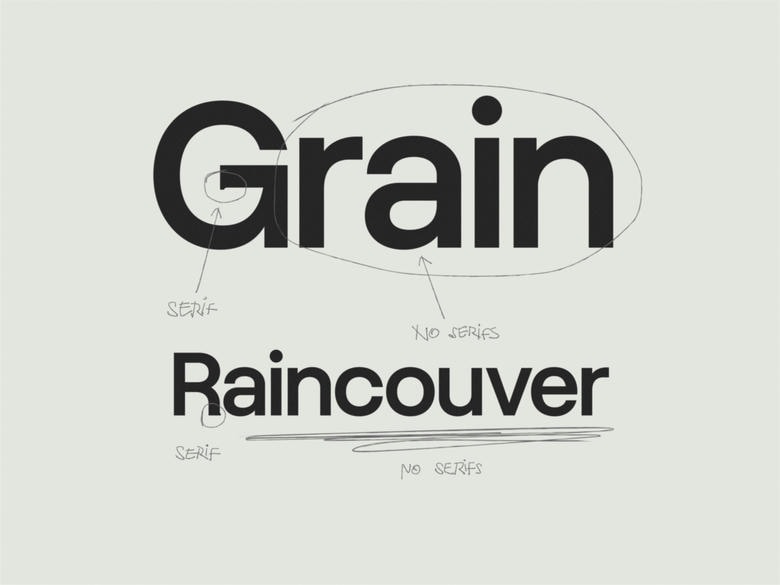
Grain Font is a grotesque typeface built from simple shapes and tight spacing. Its design feels soft but precise, with smooth, understated curves. It stays clear and easy to read, offering a subtle look on the page.
Grain Sans Serif Font Family